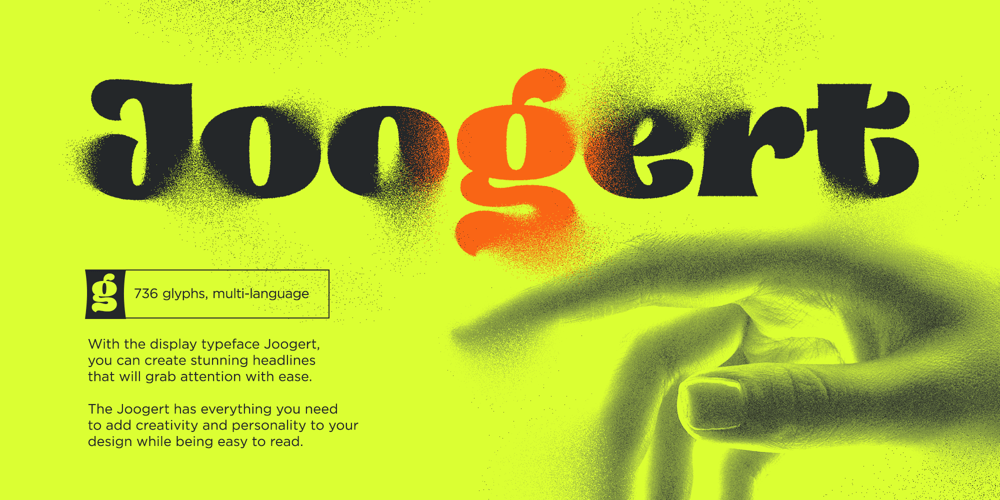
Joogert Font Family was designed by Oleg Gert and published by Oleg Gert. Joogert contains 1 styles and family package options. With the display typeface Joogert, you can create stunning headlines that will grab attention with ease. The Joogert has everything you need to add creativity and personality to your design while being easy to read.